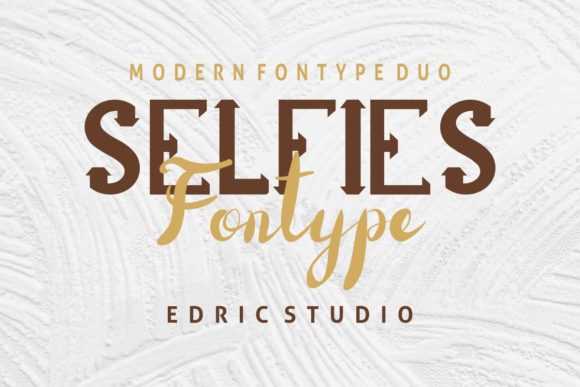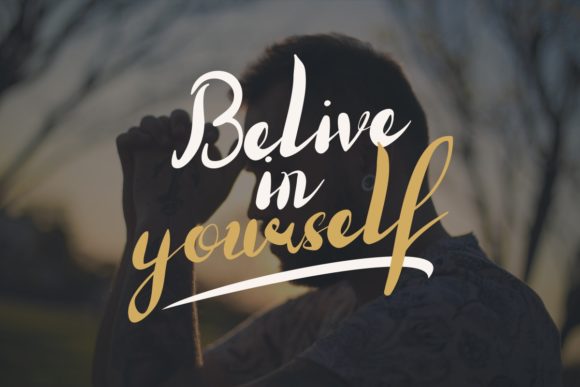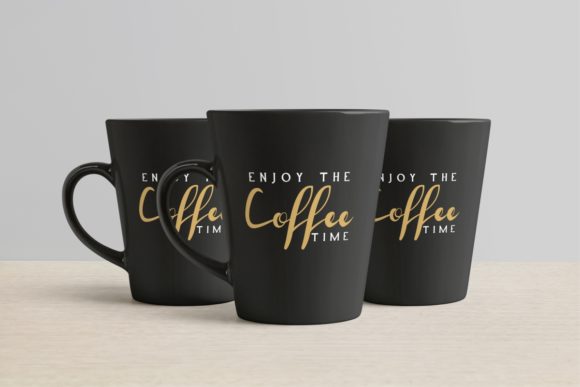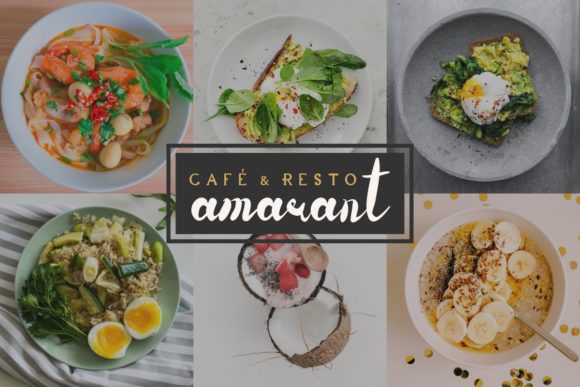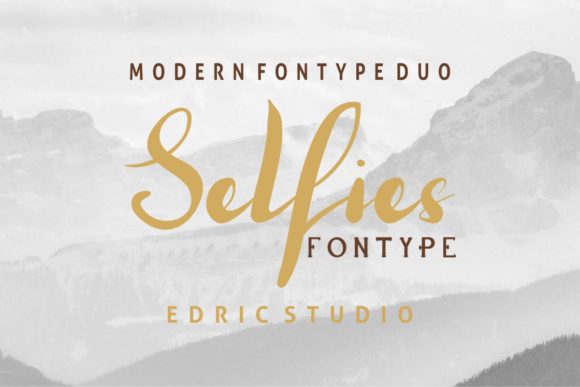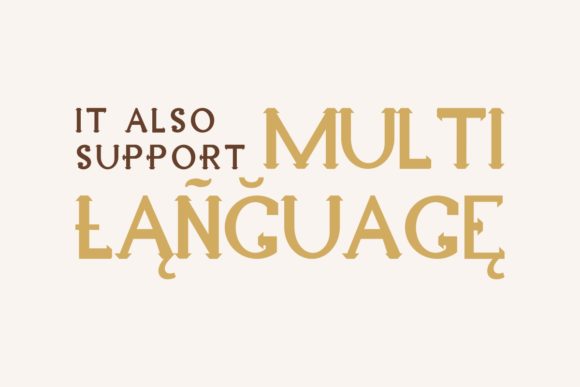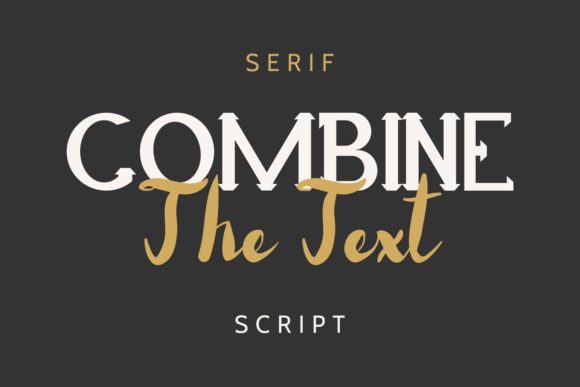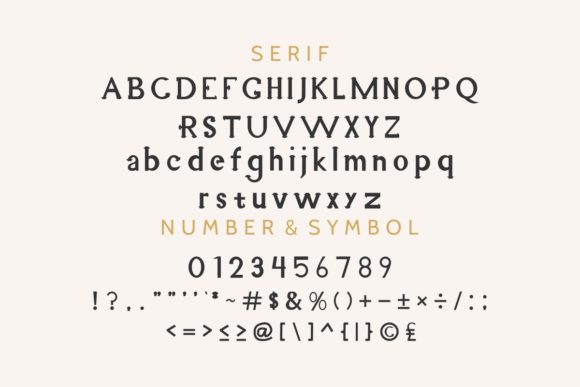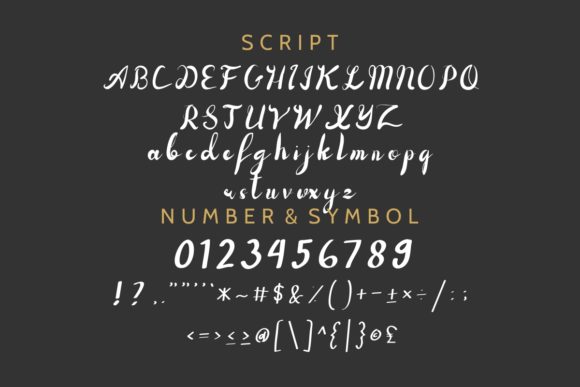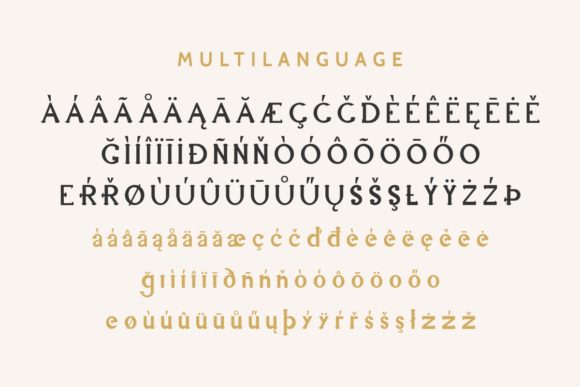
Selfies Font
About Selfies Font
Selfies is a new modern font duo with a handwritten script and serif display font. Both styles have a fresh and elegant appearance!